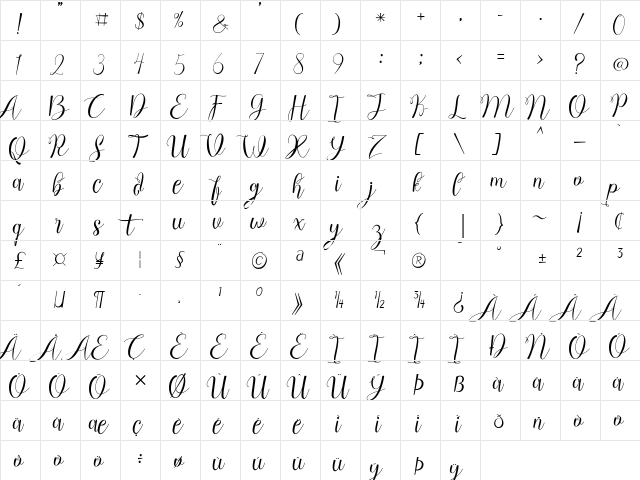
Chocolate Milky Free Personal Regular
Design Context for Chocolate Milky Free Personal Typeface
Chocolate Milky Free Personal is a composed and adaptable typeface that performs quietly and consistently across a wide range of design contexts.